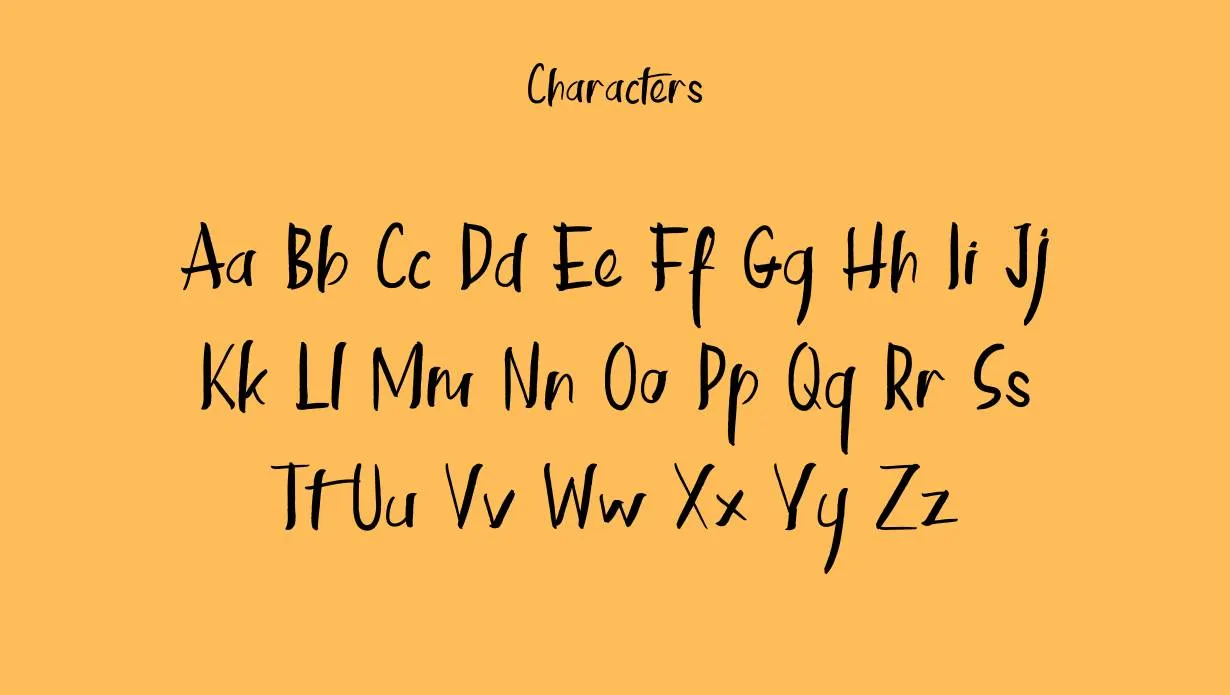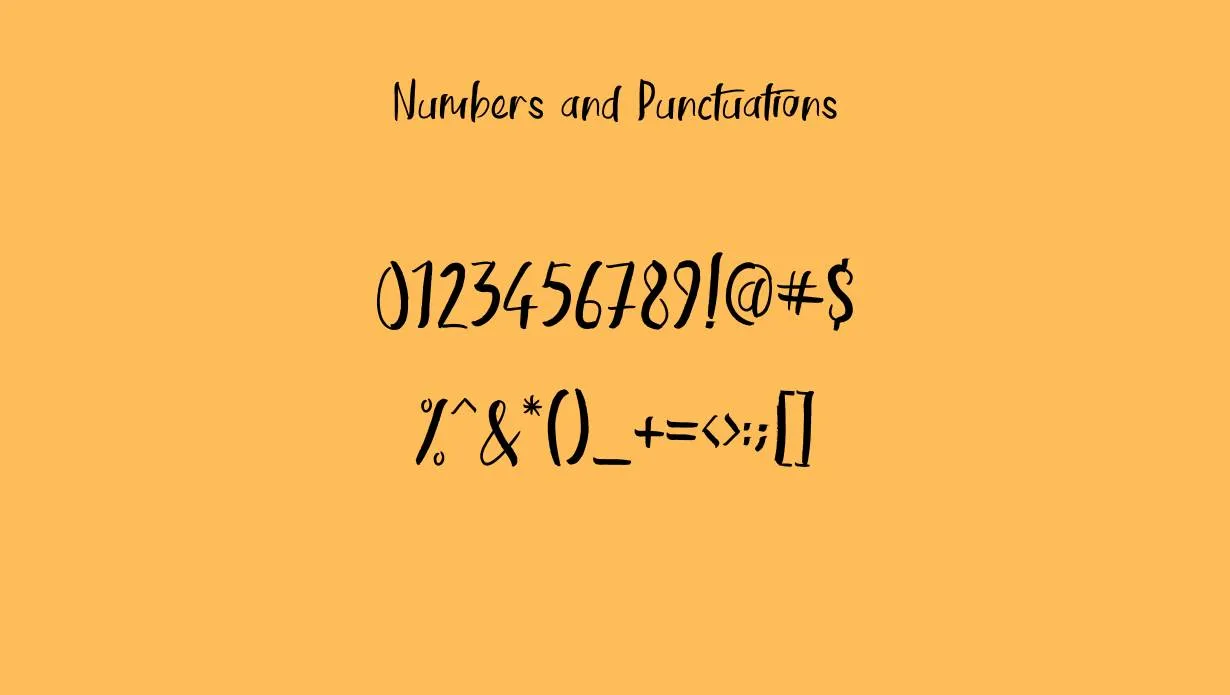
Today we have brought a popular typeface for you named Kinemon Font. This outstanding typeface is a combination of script and brush font family that makes it more appealing than other fonts.
The stunning characters of this grandeur typeface can be paired with mavel font to leave a mark in the hearts of viewers.